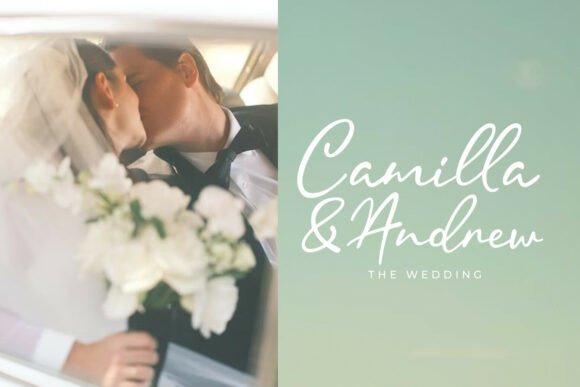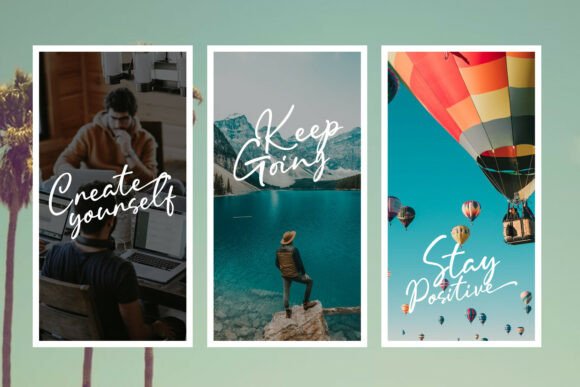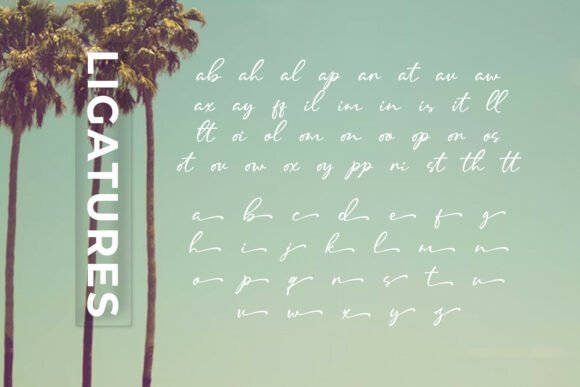
Introduction to Malline Font
Remember the thrill of receiving a handwritten letter in the mail, with its imperfect strokes and charming imperfections? That’s exactly the magic of the Malline Font – a script handwriting font that captures the essence of real hand-lettering. As designers, we’re always on the lookout for unique design resources that add a personal touch to our projects. And when we stumble upon a font like Malline, we know we’ve struck gold.
With its smooth, expressive strokes and dynamic brush texture, Malline Font is the perfect addition to any high-quality design. Whether you’re working on a creative project, crafting a logo, or designing product packaging, this font delivers an authentic handwritten charm that’s hard to resist. And the best part? It’s free to download, making it an accessible design resource for designers of all levels.
Key Features of Malline Font
- Includes a range of font styles and weights, providing a versatile design resource for various applications.
- Supports a wide range of languages and characters, making it an ideal choice for multilingual designs.
Honest Review: Malline Font
I recently stumbled upon the Malline Font, and I must say it’s been a great addition to my design arsenal. As a designer, I’m always on the lookout for high-quality fonts that can elevate a creative project. Malline Font delivers on that front.
- ✨ It has a unique, modern design that catches the eye.
However, I did encounter a few limitations while using the Malline Font. ⚠️ It’s not ideal for use in small text sizes, as it can become difficult to read.
Overall, I’m impressed with the Malline Font. It’s a great design resource that can add a touch of sophistication to a project. While it may have some limitations, it’s definitely worth considering for your next creative project. I’d recommend giving it a try and seeing how it works for you.
Malline Font
Malline Font is a versatile and high-quality design resource ideal for creative projects. This font is perfect for those seeking a unique and modern look for their designs. It features a transparent background, making it easy to customize and blend with any design.